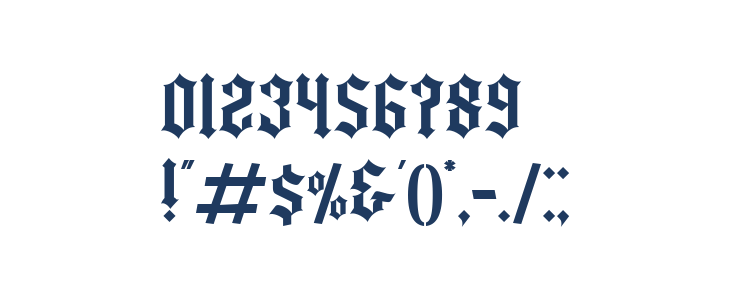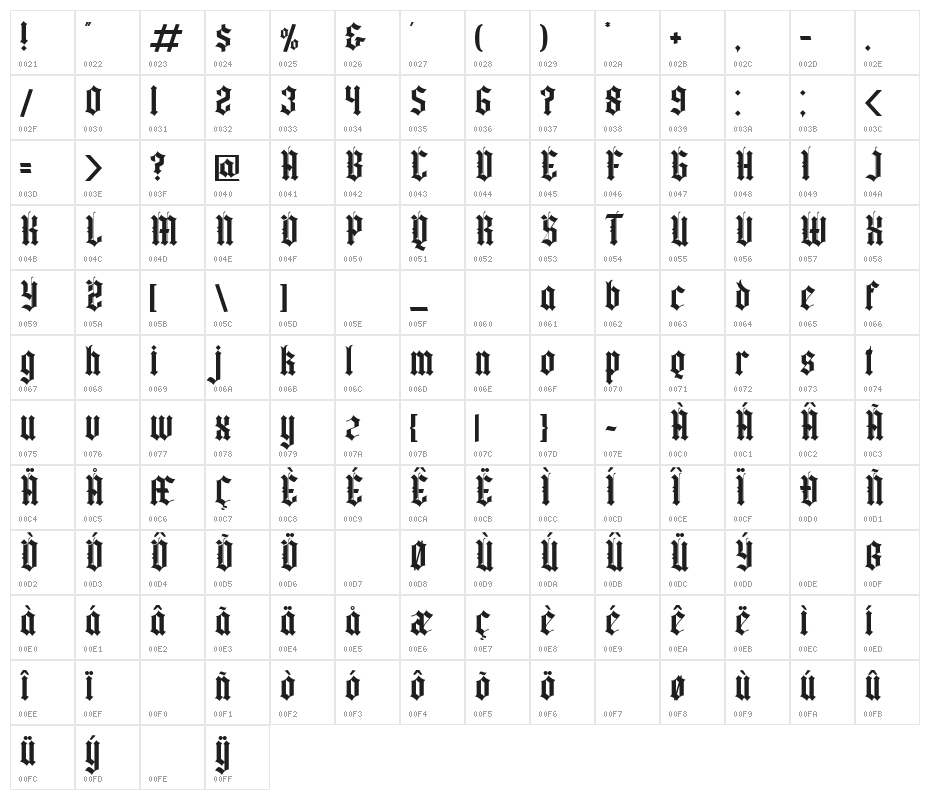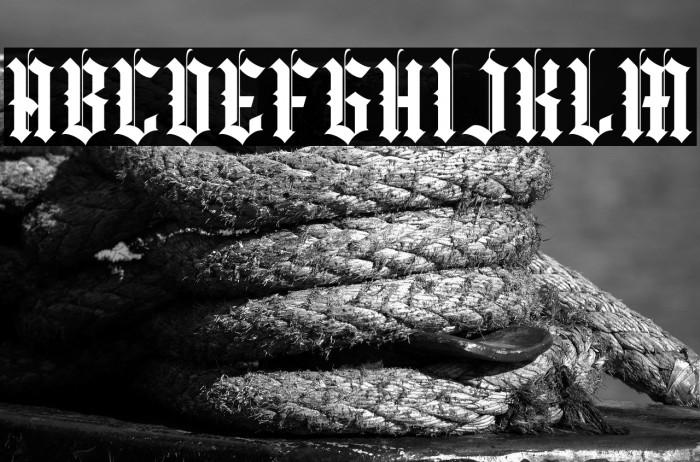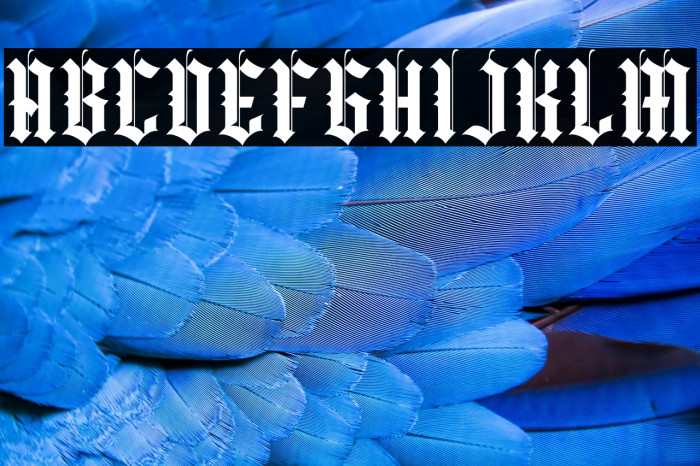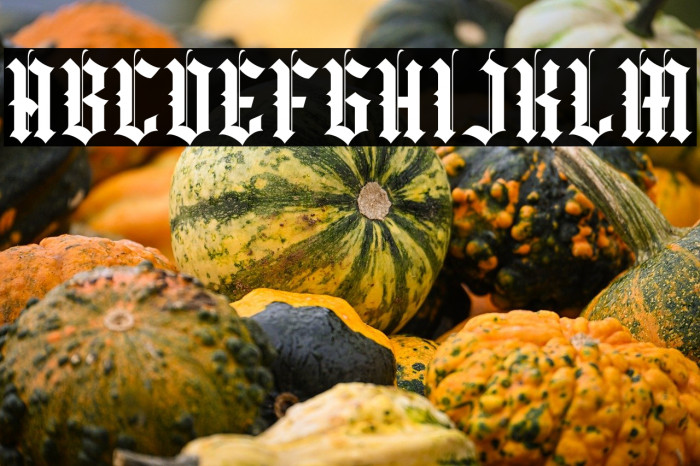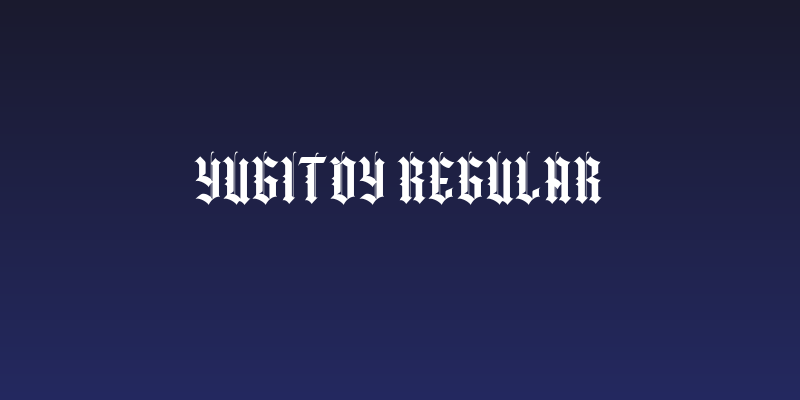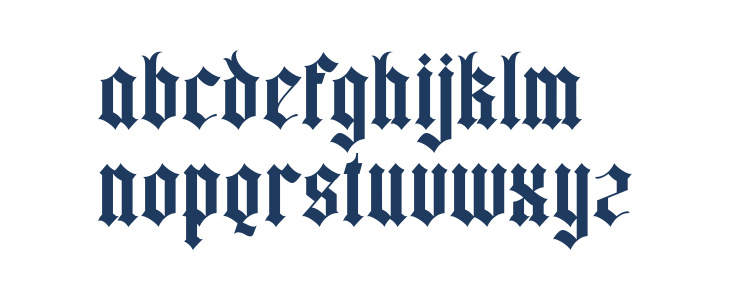
Yugitoy Regular Font
Yugitoy Regular Description
This font exhibits a traditional blackletter style, characterized by its intricate and ornate design. The letters are bold and angular, with sharp edges and a distinct medieval aesthetic. The uppercase and lowercase letters maintain a consistent style, with the uppercase being slightly more elaborate. The numbers and special characters are designed to match the overall gothic theme, providing a cohesive look across all characters. This font is reminiscent of old English script, often used in historical or formal contexts.